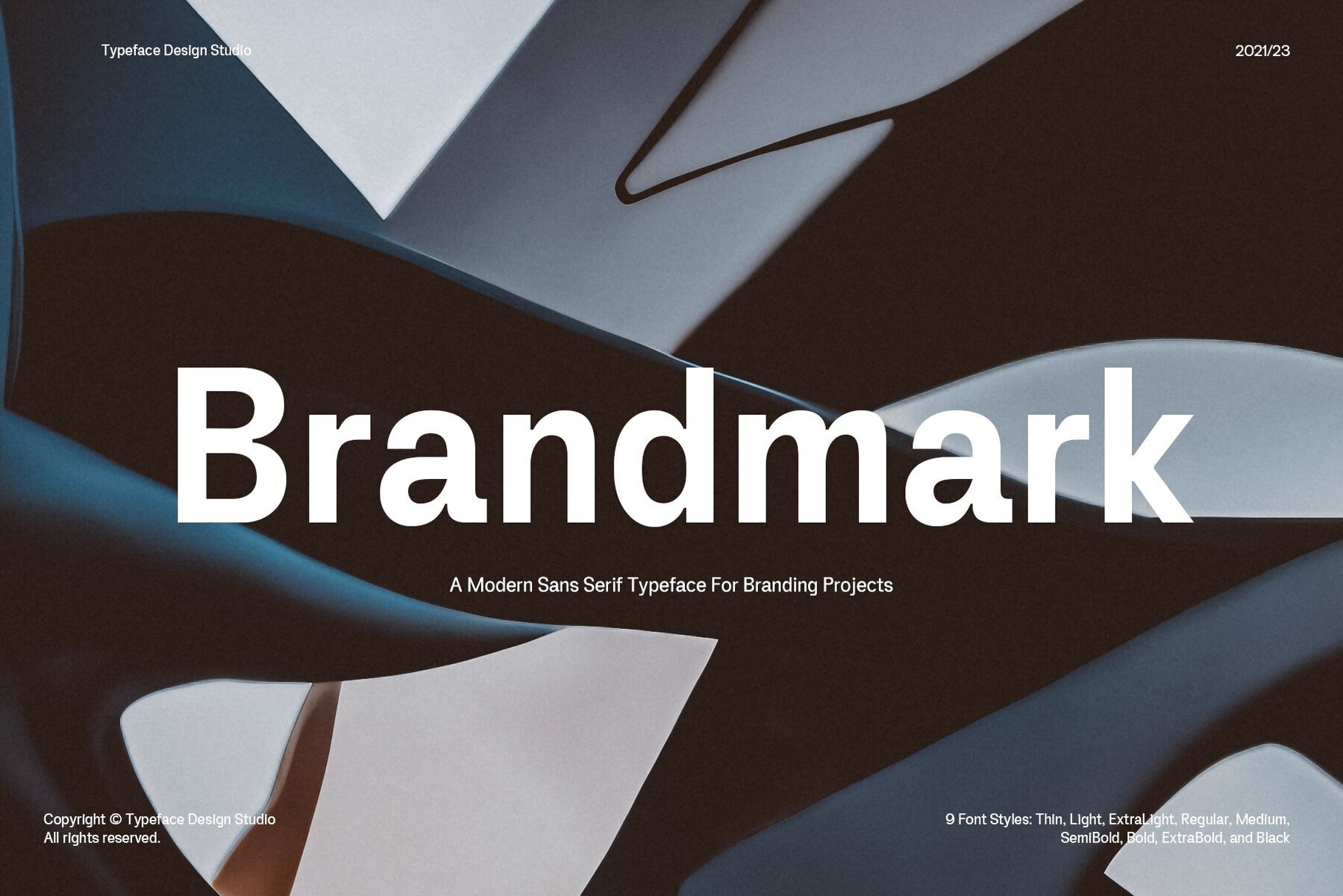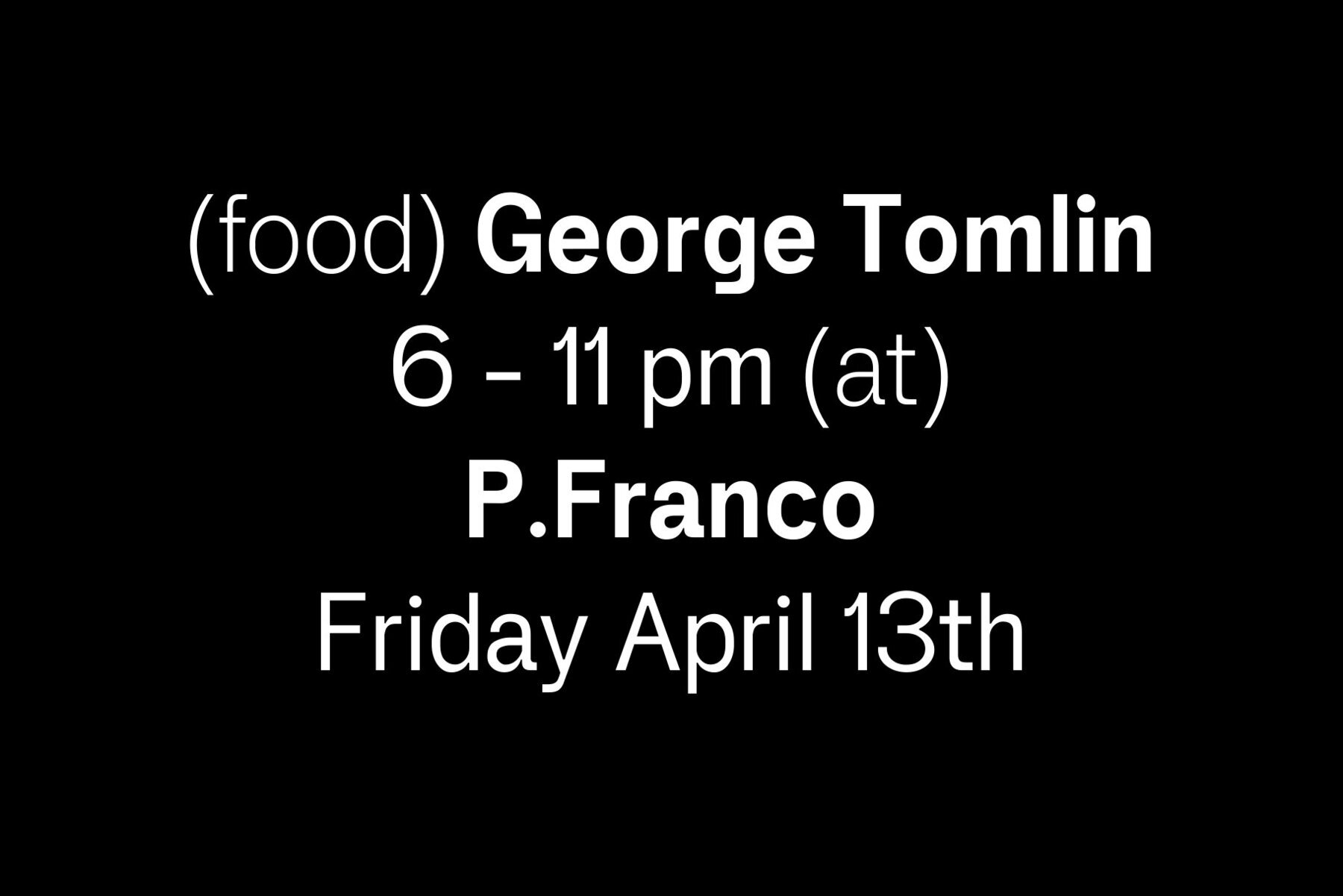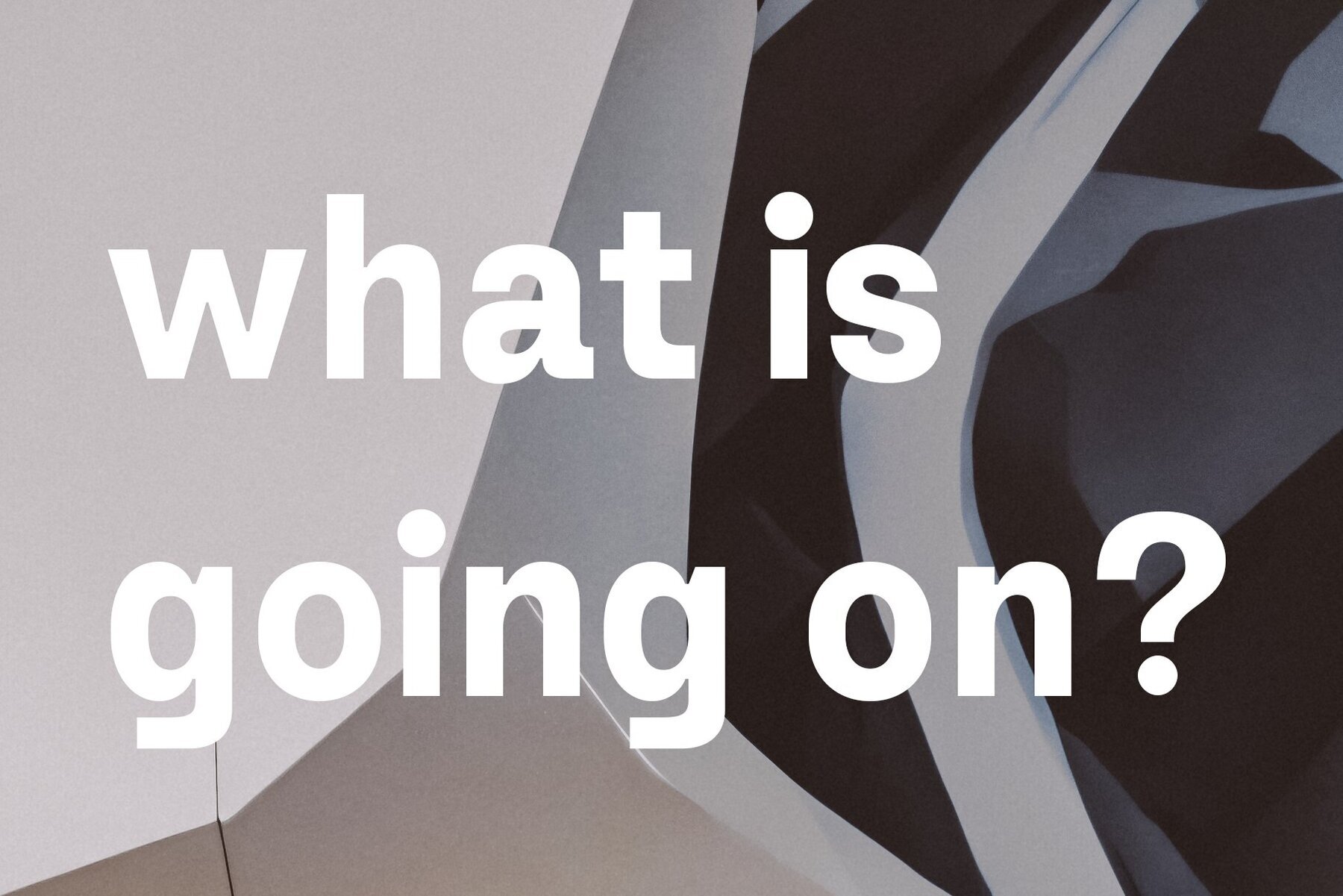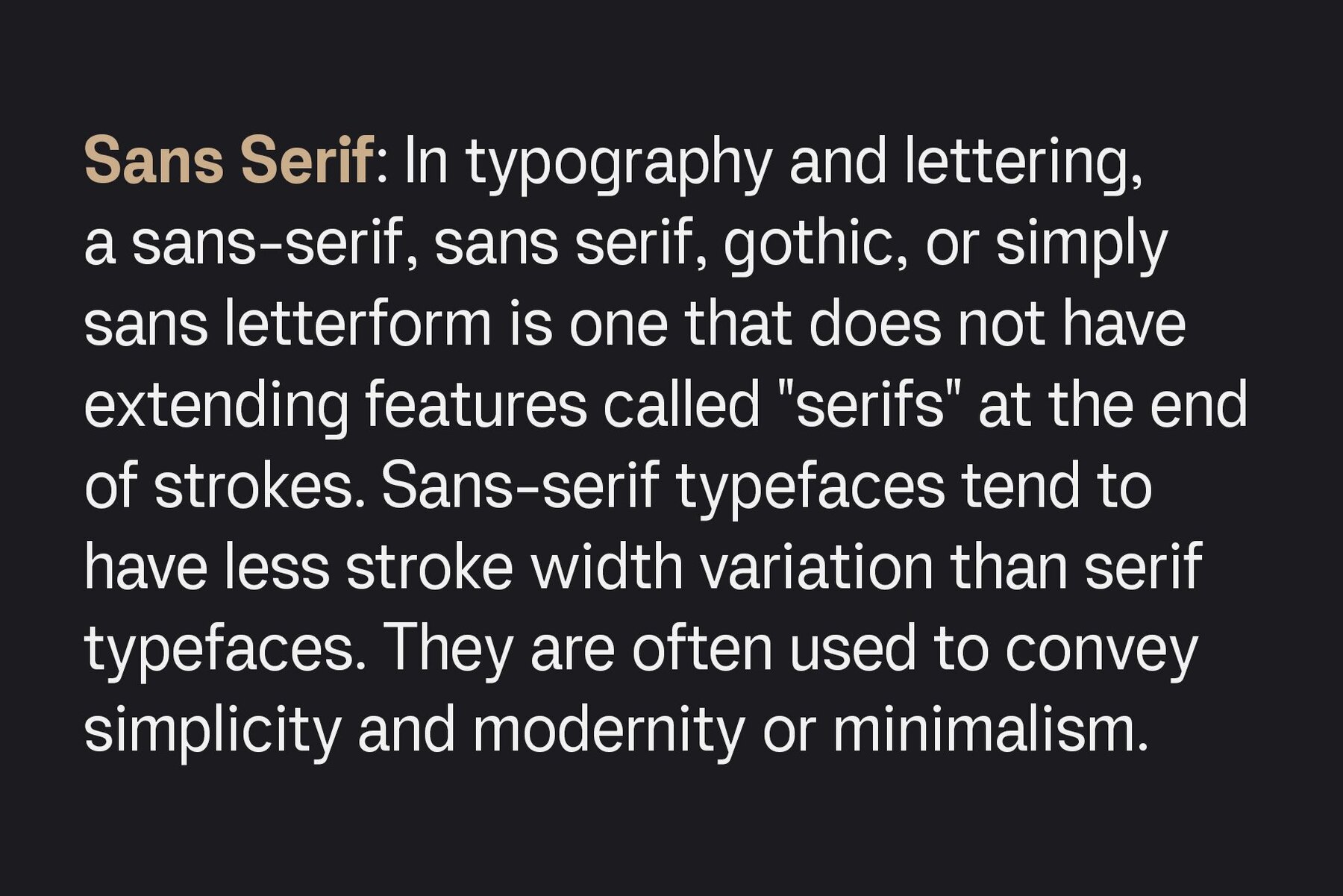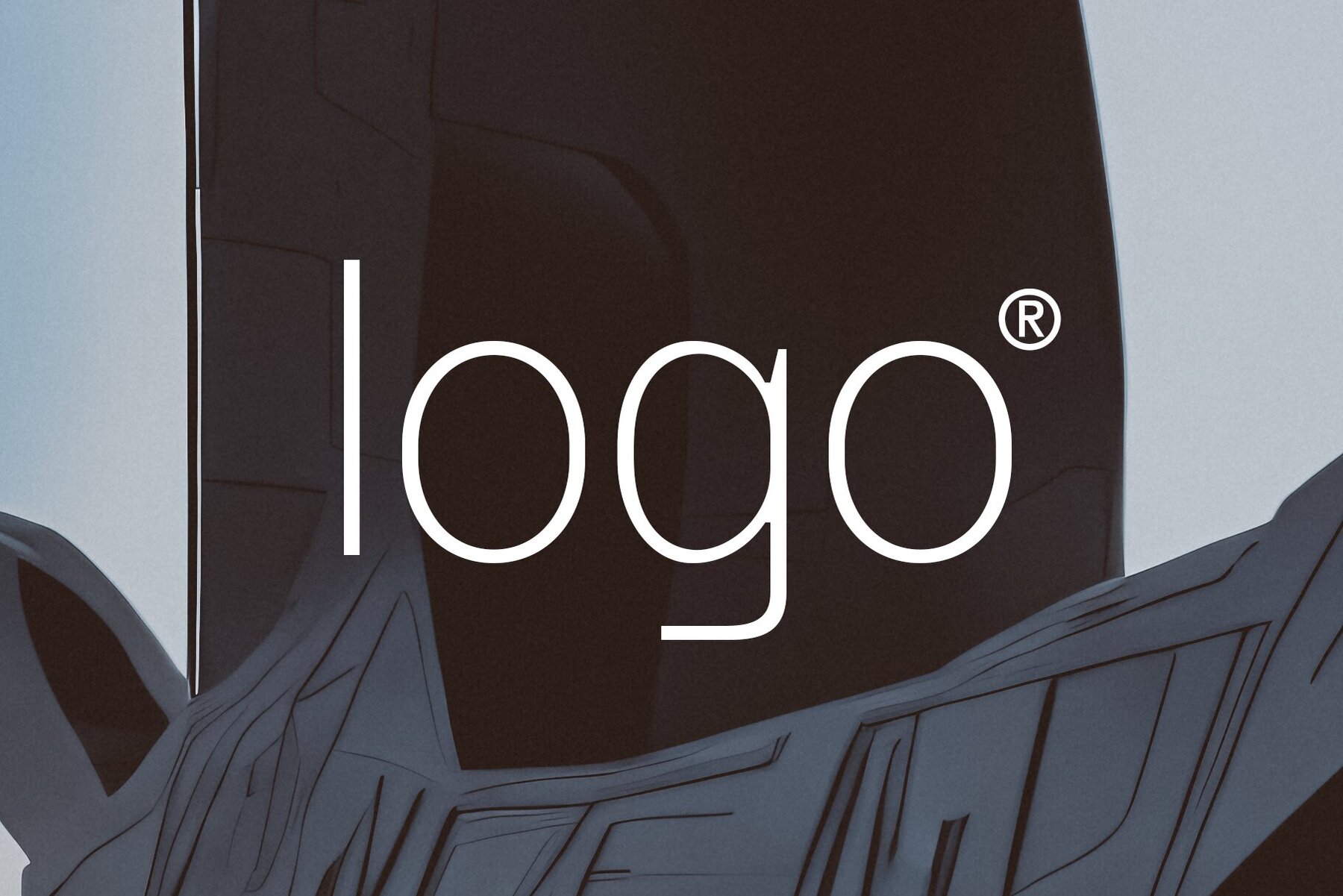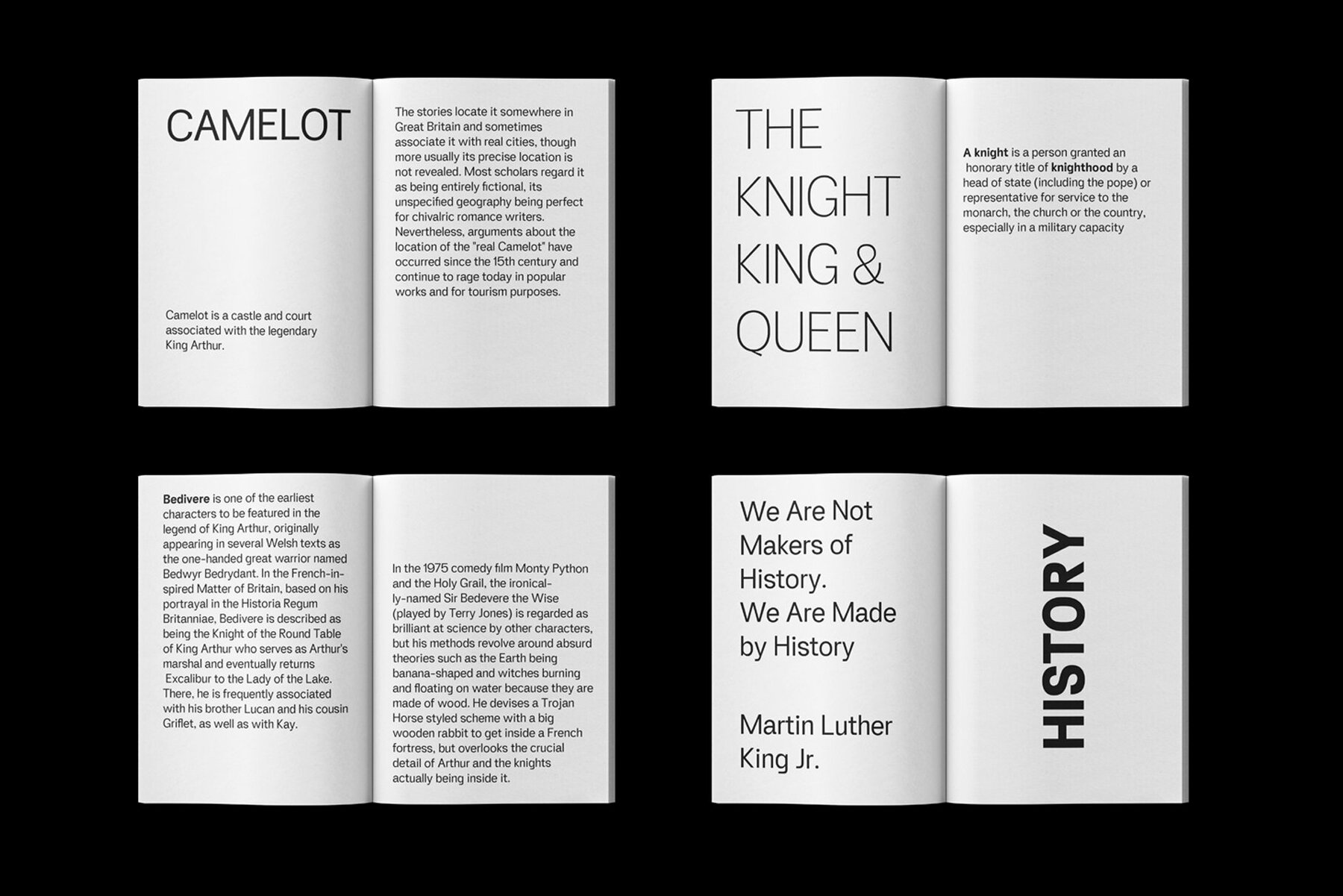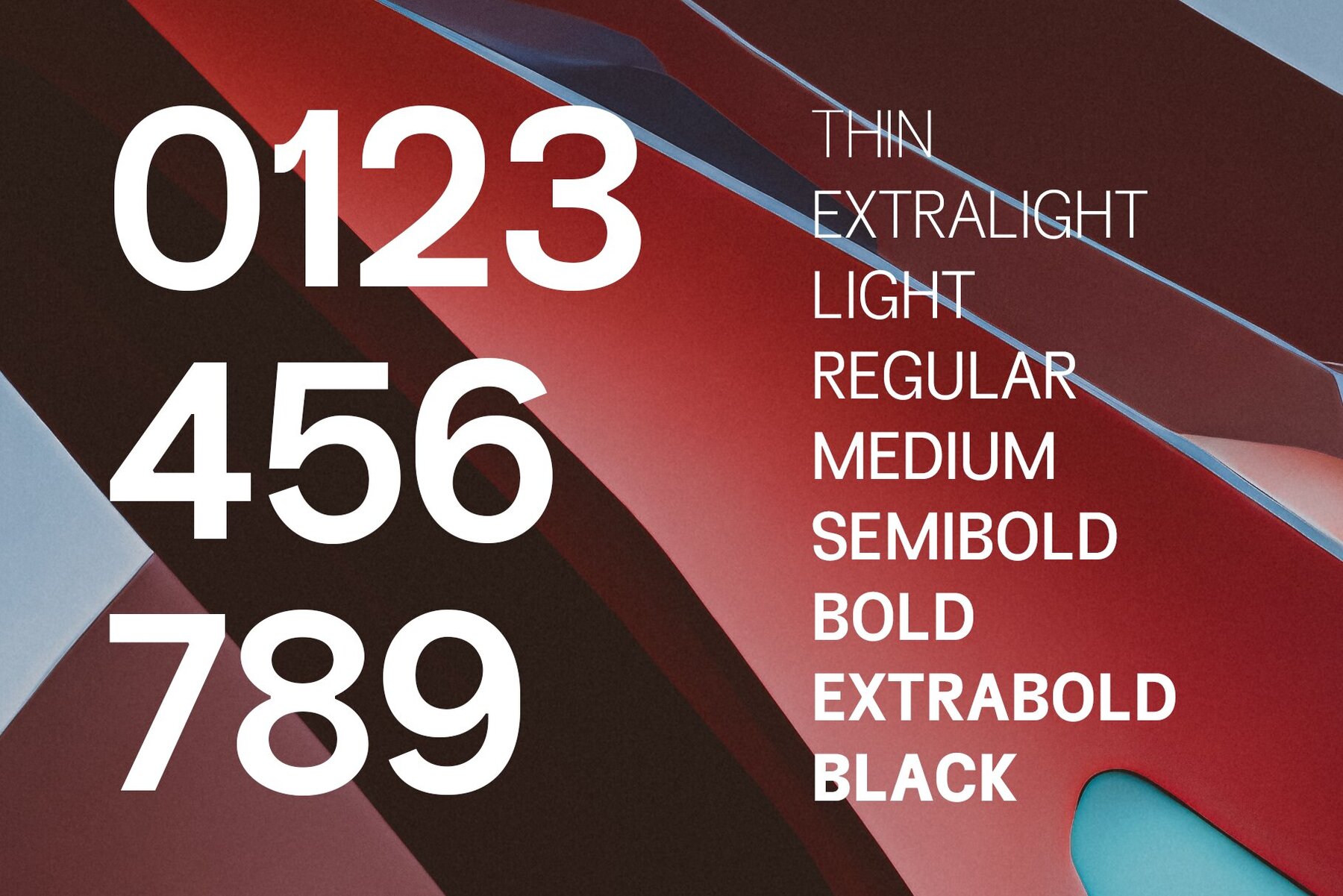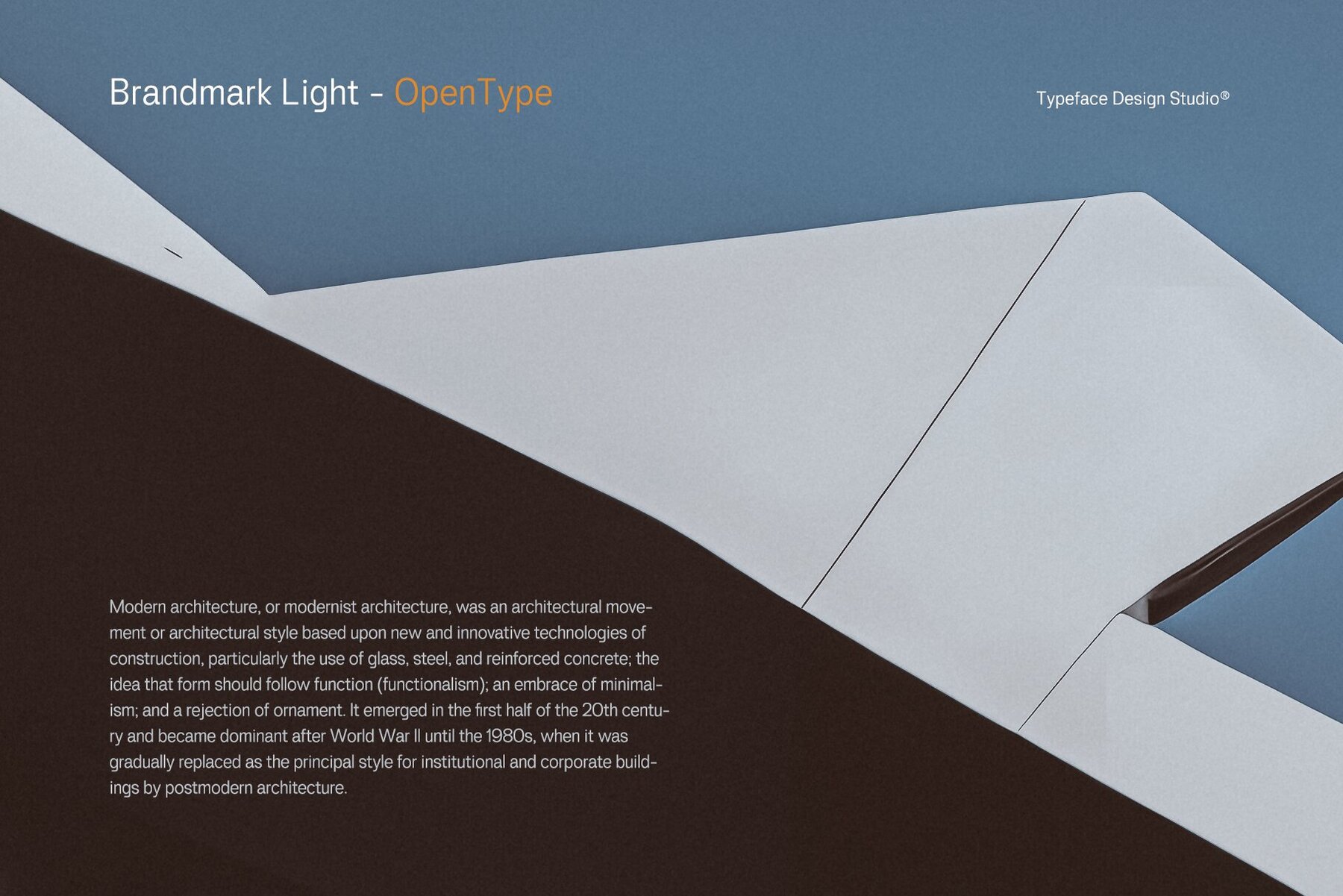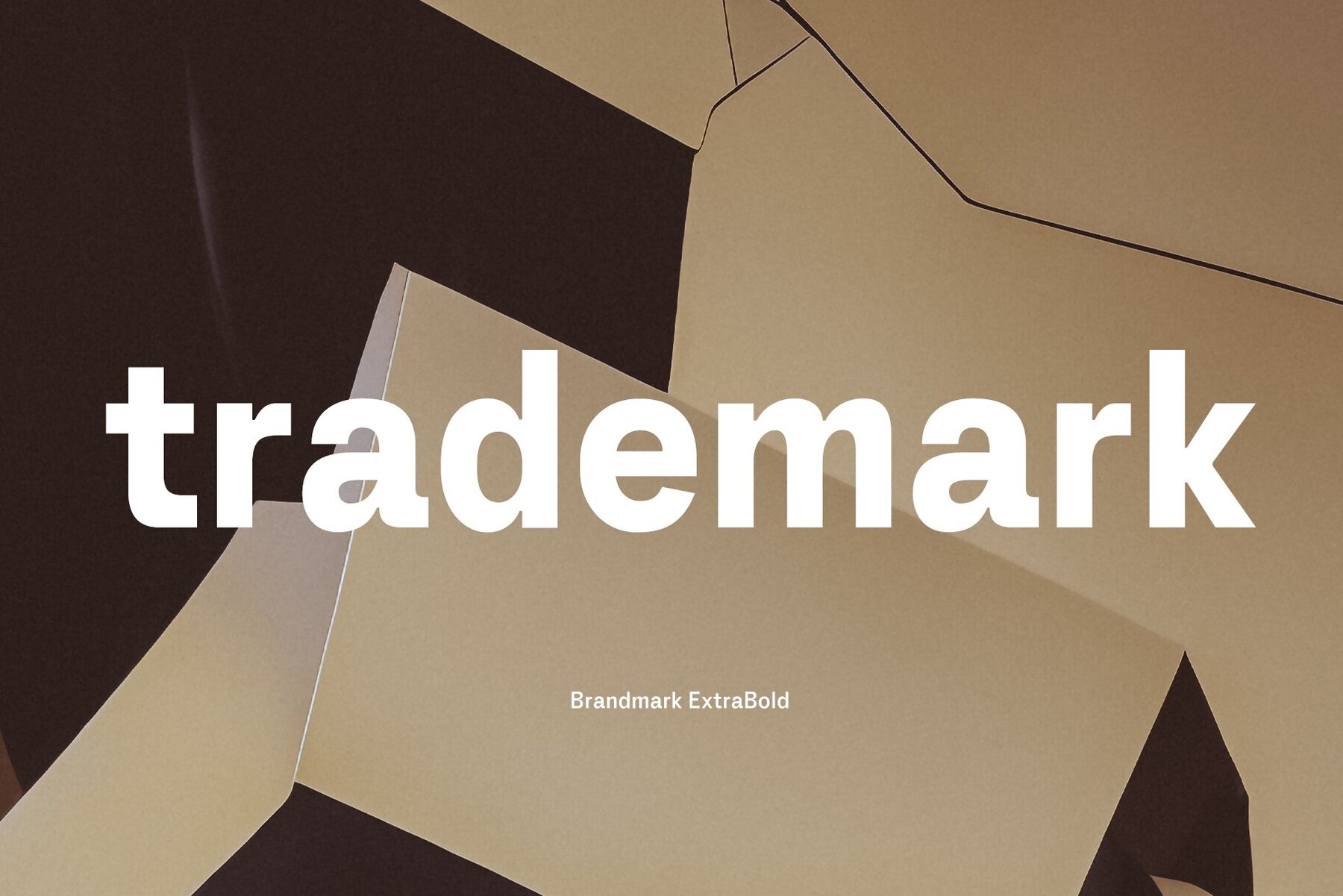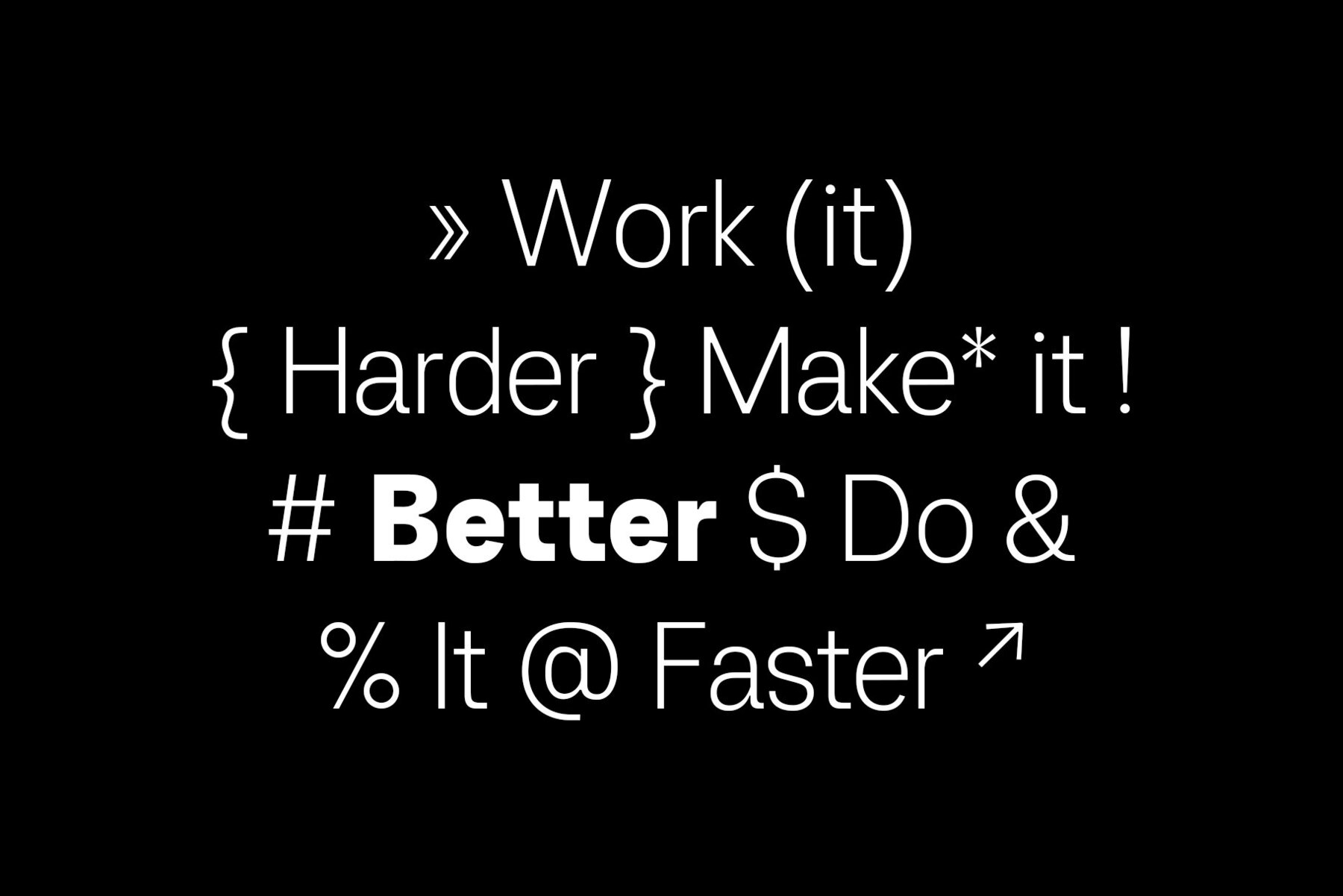
Brandmark Font
Brandmark font is a sans-serif font designed by Typeface Design Studio ideal for logo design, branding, marketing, and copyright work. With 9 styles ranging from thin to an extra-black font weight, the Brandmark font family guarantees the perfect typography for your graphic design requirements. It also stands out among other font types as its sleek modern look allows for easy combination with any other font family. Creative users can even use this font for their posters, books, apparel, card designs, social media designs, UI/UX and beyond – unleashing an infinite range of possibilities for this dynamic font type.